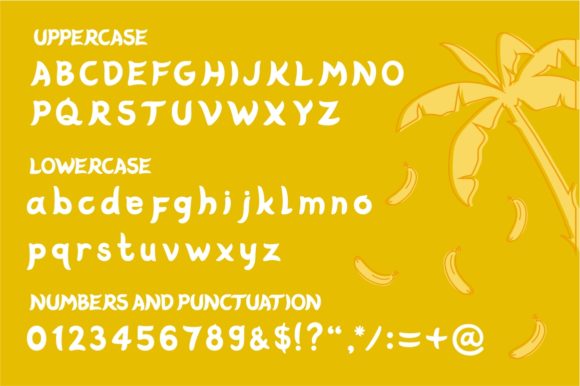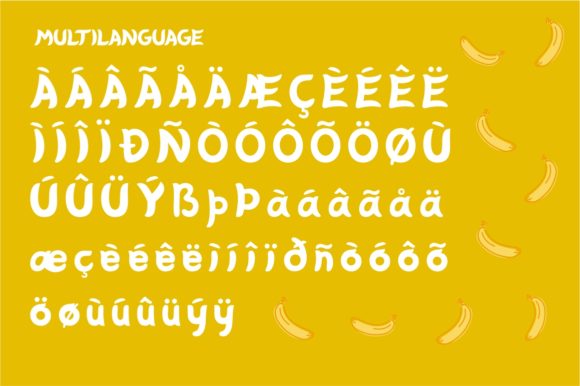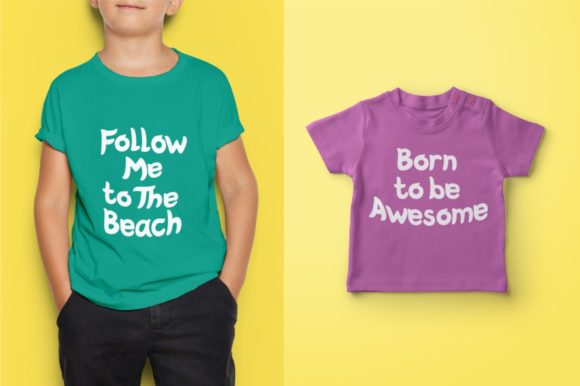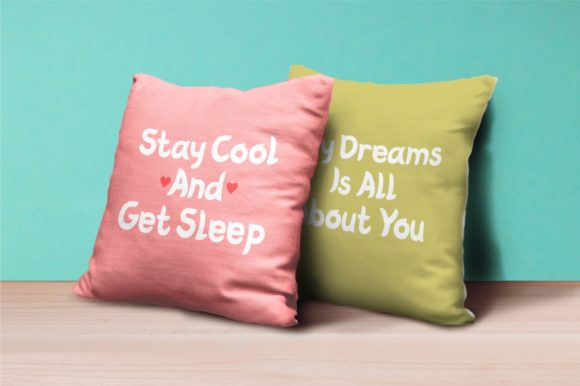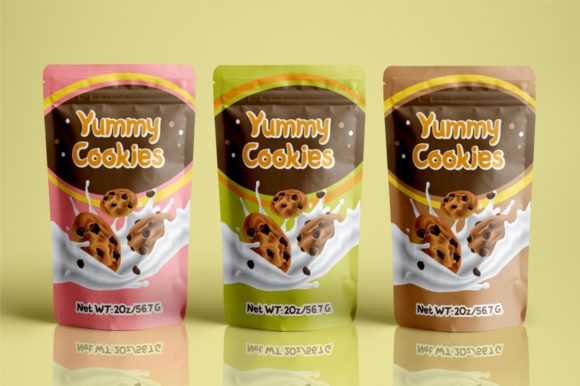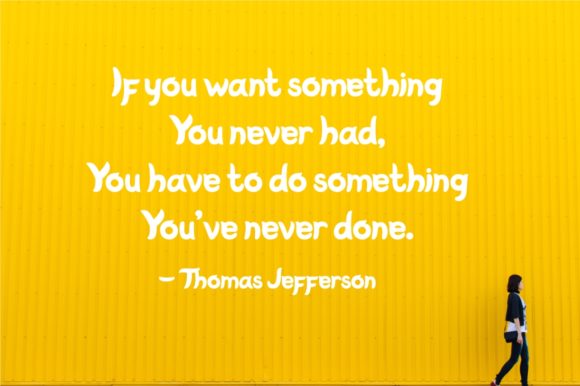
A Slice of Sunshine for Your Designs
Who hasn’t been inspired by the warmth of a sunny day at the beach? The feeling of sand between your toes, the sound of waves gently lapping at the shore, and the vibrant colors of tropical fruits – it’s a sensory overload that sparks creativity and fuels imagination. For designers, this feeling can translate into something tangible: a unique visual language that captures the essence of carefree joy.
Enter the Banabo Font, a playful and striking typeface that embodies the spirit of the beach and the whimsy of a banana. With its carefree style, the Banabo Font is perfect for adding a touch of fun to your designs, whether it’s a logo, poster, clothing brand, or anything in between. Its value lies in its versatility and the ability to elevate your designs with a dash of tropical flair.
As a designer, you know the importance of finding the right font to convey your message and capture your audience’s attention. The Banabo Font is an excellent addition to your toolkit, offering a refreshing alternative to more serious typefaces and opening up new possibilities for creative expression.
Banabo Font Key Features
- Font Family: Banabo is a unique sans-serif font with a distinctive, hand-drawn feel.
- Character Set: Includes a comprehensive set of characters, including Latin, Cyrillic, and Greek alphabets, as well as punctuation and symbols.
- Unique Characteristics: Features a subtle, organic feel with varying stroke widths and rounded edges, making it ideal for creative and editorial projects.
Designer Review: Banabo Font
Overall, I think Banabo Font has some great qualities that make it a nice addition to any design project. ✨ One of the things that stands out to me is the playful and whimsical feel of the font. It’s perfect for creating a fun and youthful vibe, and it’s great for projects that need a bit of personality.
Another thing that works well is the font’s flexibility. ✨ Banabo comes in a range of weights and styles, from light to bold, and it’s available in both serif and sans-serif versions. This makes it easy to use in a variety of different contexts, from body text to headlines.
- ⚠️ Banabo can feel a bit overused – I’ve seen it used in a lot of projects, and it’s starting to feel a bit too familiar.
- ⚠️ The font’s x-height is a bit inconsistent, which can make it harder to read in certain contexts.
- ⚠️ Banabo doesn’t come in as many language-specific variations as some other fonts, which can make it harder to use in multilingual projects.
Overall, I think Banabo Font is a solid choice for designers looking for a playful and versatile font. While it has some limitations, it’s still a great option for a wide range of projects. Just be aware of the potential pitfalls, and use it thoughtfully.
Tips for Getting the Most Out of Banabo Font
Experiment with different font sizes and styles to create visually appealing designs. Use Banabo Font in combination with other fonts to add variety and interest to your designs. You can also use the font in conjunction with bold and italic styles to add emphasis and create a unique look.
Banabo Font is perfect for creating eye-catching headings, titles, and graphics for social media, advertising, and branding projects. It’s also great for adding a touch of personality to presentations, documents, and other business materials.